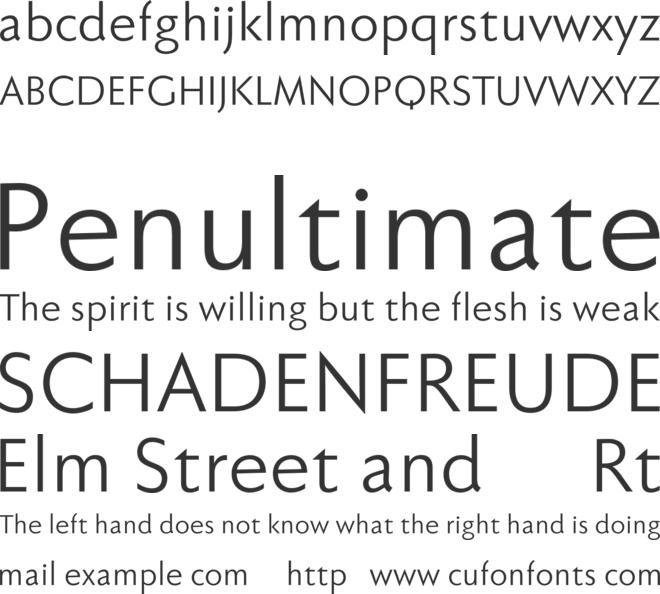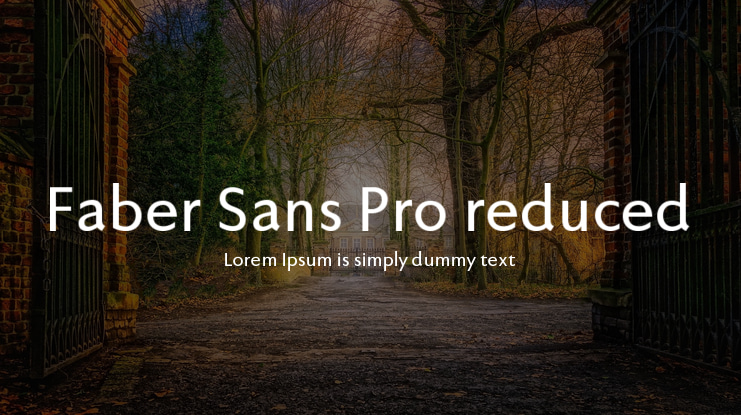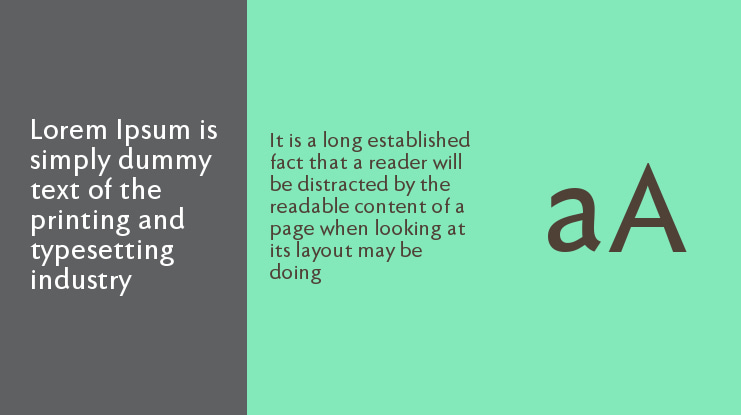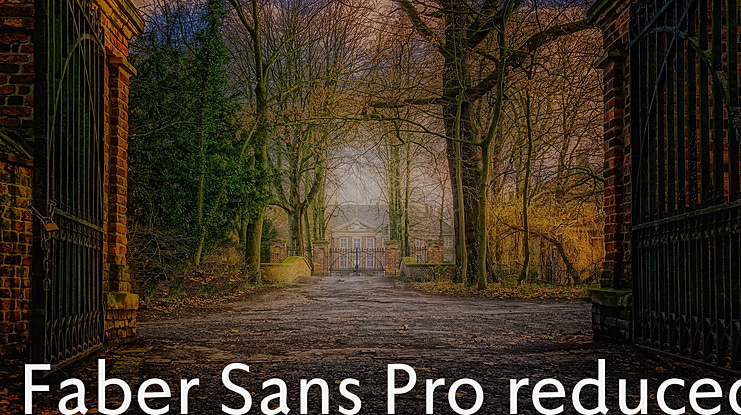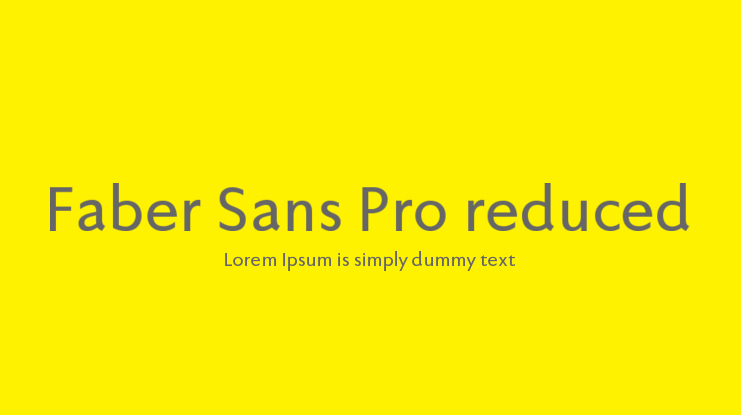
Faber Sans Pro reduced Font Family
Ingo Zimmermann
Two fonts in one: a classic-modern sans serif appearing in two forms "standard" and a "stylistic alternate" with uncial script-orientated characters which give the font a completely different "look."
The idea for one of the very first ingoFonts, the sans serif "Faber Eins & Zwei," originated in 1996. This typeface gained popularity over the years, especially in Anglo-Saxon countries. A lot has changed since then not just in font technology. In 2010 it was time for a basic revision of this attractive font, and time to bring it up to date with current font technology. A uniqueness of Faber Sans Pro is that it is actually composed of two fonts. The "basic typeface" is a sans serif in the classic-modern style of type creations of the early 20th century godfathered by Futura from Paul Renner and Gill Sans from Eric Gill. The Roman Capitalis provided the model for the classically proportioned capital letters and the harmonic shapes of the humanistic minuscule for the lower case characters. And so a font with pleasant rhythmic proportions was created and is extremely comfortable to read, especially in large amounts of text; but, it is also reader-friendly under adverse typographic conditions on the monitor.
A "second" typeface with its own personal character resulted as stylistic alternates were designed for the letters a e f g l t u in accordance with the uncial scripts of the late antiquity or rather the early Middle Ages. And the r is given a playful point in the stylistic alternates. Modern OpenType technology makes it possible to combine the previously separate typefaces into one font. The stylistic alternate can be accessed via the OpenType-Functions »Discretionary Ligatures« or also » Stylistic Alternates« (and of course the glyph panel).   More...
Unlike classic sans serifs, Faber Sans Pro includes a "true" italic. The italic characters are not simply just slanted variations of the upright, but the characters originated out of handwriting styles; they are rounder and the stroke flow is more fluent than on the upright letters. Some italic letters truly have their very own design which clearly comes from handwriting, particularly noticeable on a and g.